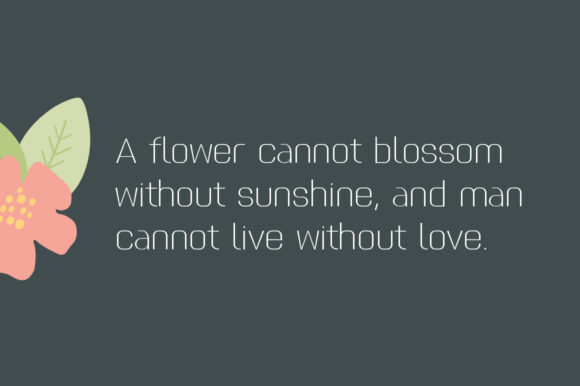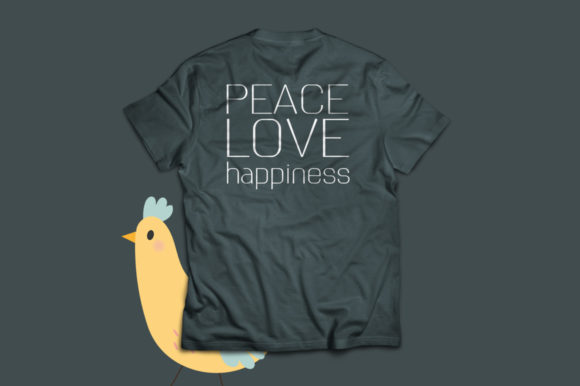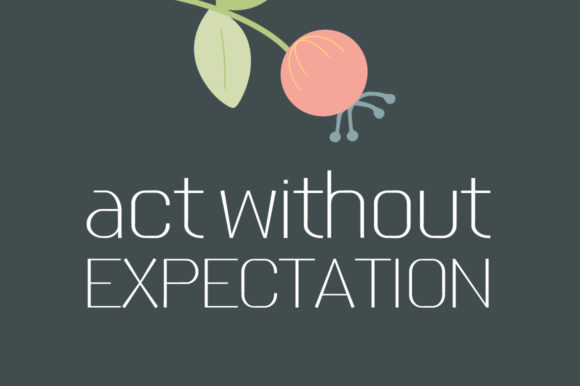
Introducing Donne Font: Elevate Your Design with a Touch of Classic Elegance
In the world of typography, fonts play a pivotal role in transforming a design project from ordinary to extraordinary. Among the myriad of fonts available, Donne Font stands out as a beacon of modernity with a classic touch. This stunning display font is meticulously crafted to add a layer of sophistication and elegance to any design, making it a must-have for designers and crafters alike.
The Essence of Donne Font
Donne Font is more than just a typeface; it’s an experience. It’s a modern display font that seamlessly blends contemporary aesthetics with timeless classic elements. This unique fusion results in a font that is not only visually appealing but also incredibly versatile. Whether you’re working on a branding project, a website design, or crafting beautiful printable art, Donne Font is poised to elevate your work to new heights.
Why Choose Donne Font?
There are countless reasons why designers and crafters are gravitating towards Donne Font, and here are a few:
- Versatility: Donne Font’s adaptability makes it perfect for a wide range of projects. From digital platforms like websites and social media graphics to print materials such as brochures, posters, and business cards, this font ensures your design stands out.
- Elegance: The classic touch in Donne Font brings an air of sophistication to your designs. It’s ideal for projects that require a level of formality without compromising on modern appeal.
- User-Friendly: Designed with the user in mind, Donne Font is easy to read and works beautifully in both headings and titles, making it a fantastic choice for designers looking to create a strong visual hierarchy.
- Unique: In a sea of similar fonts, Donne Font offers a distinctive look that can help your brand or project differentiate itself from the competition.
Applications of Donne Font
The potential applications of Donne Font are vast and varied. Here are some popular uses:
- Branding: Create a lasting impression with logos, business cards, and letterheads that exude professionalism and style.
- Web Design: Enhance user experience with a font that is both modern and easy to read, perfect for headings, titles, and call-to-action buttons.
- Printables: Whether you’re designing printable art, planners, or journals, Donne Font adds a touch of elegance that elevates the final product.
- Advertising: Make your advertisements stand out with a font that captures attention and communicates your message effectively.
Tips for Using Donne Font Effectively
To maximize the impact of Donne Font, consider the following tips:
- Pair it Wisely: Combine Donne Font with complementary fonts to create visual interest and hierarchy in your designs.
- Play with Sizes: Utilize different font sizes to emphasize key messages and guide the viewer’s eye through your design.
- Experiment with Colors: While Donne Font looks stunning in classic black and white, don’t be afraid to experiment with colors that align with your brand or project’s aesthetic.
| Font Name | Donne Font |
Donne Font is a game-changer for designers and crafters looking to infuse their projects with a modern yet classic vibe. Its versatility, elegance, and unique appeal make it an invaluable asset in the world of design. By incorporating Donne Font into your projects, you’re not just choosing a typeface; you’re elevating your design to stand out in a crowded space. So, why settle for ordinary when you can create something truly remarkable with Donne Font?
Embark on a journey to transform your designs with the sophistication and modernity that Donne Font has to offer. Explore its potential, experiment with its capabilities, and witness firsthand how this stunning display font can turn any design project into a standout masterpiece.